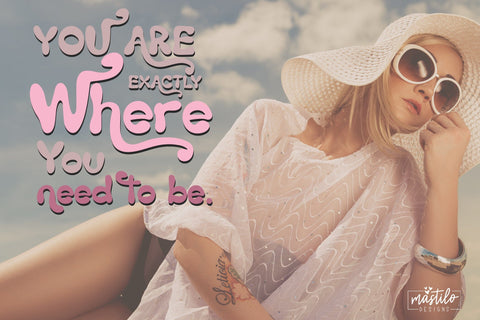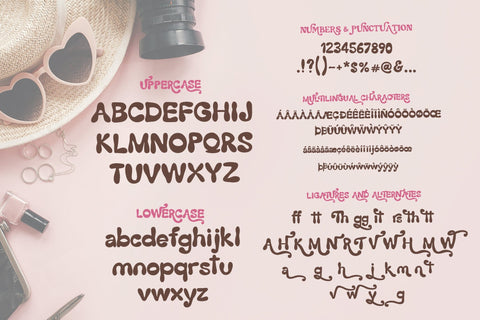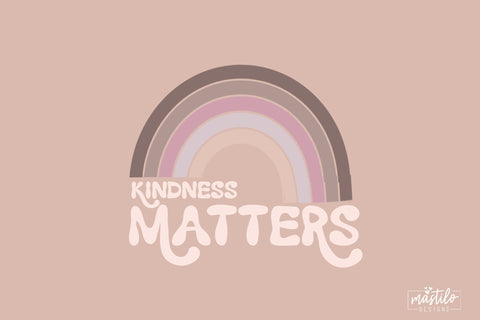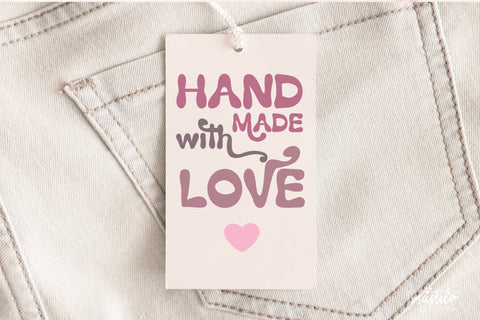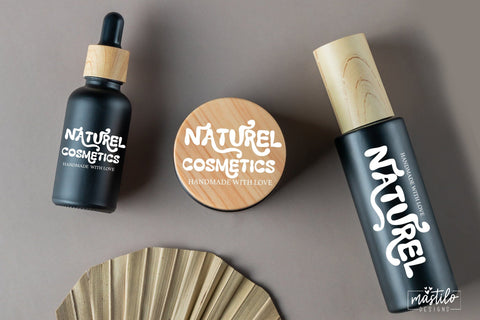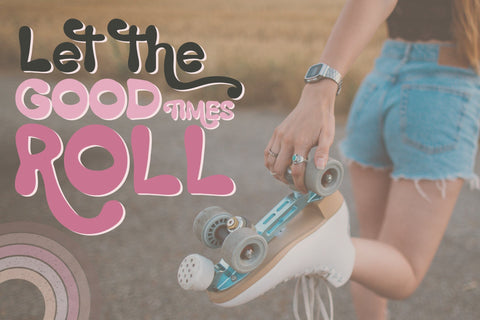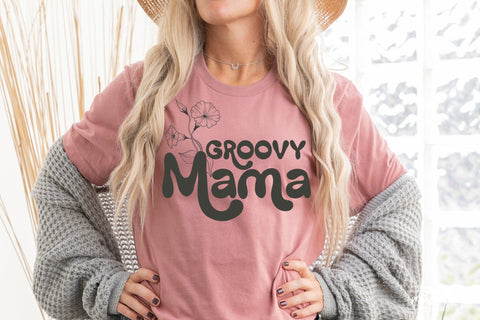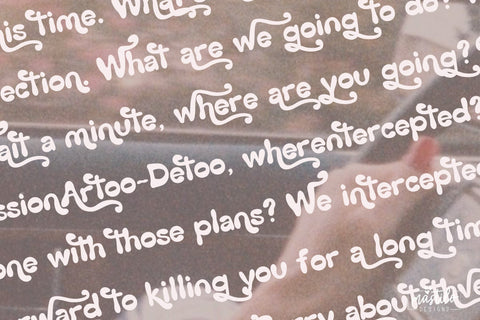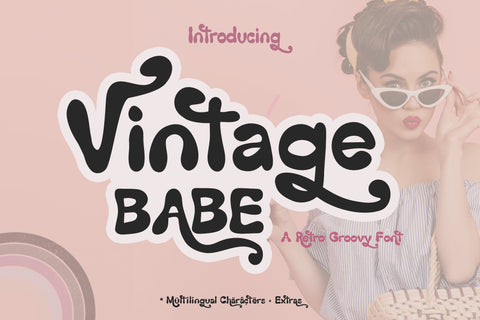
Hand Drawn Groovy Retro Font - Vintage Babe | Modern Retro Font
Introducing VINTAGE BABE, a retro groovy hand drawn display font with plenty of stylistic alternates and ligatures making it a versatile font, with possibilities for use for all your projects.
With a multilingual support this font makes a great addition to your font book.
~ full upper + lowercase characters
~ numbers + punctuation
~ Western European Language Support
~ More than 35 ligatures & alternate characters to add a little extra flow & ornamentation to your work